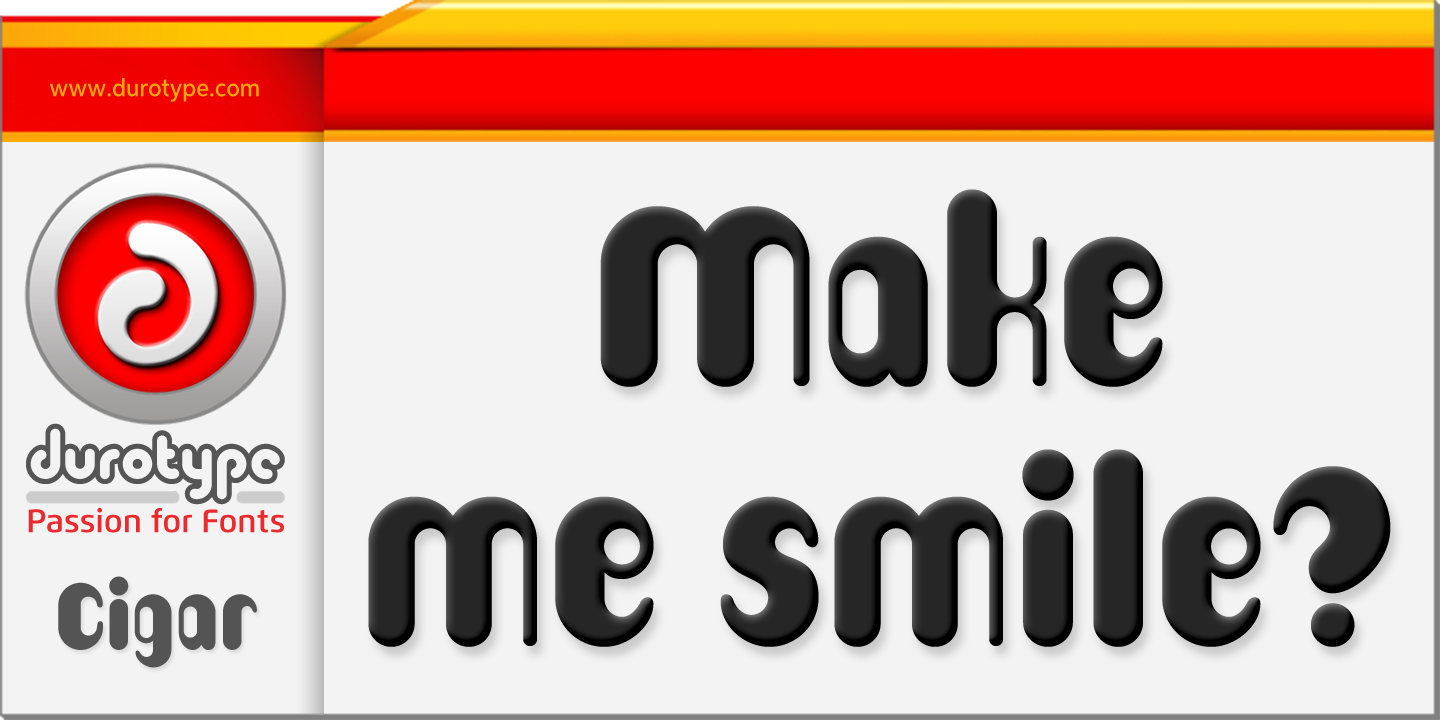
Cigar Font is perfect for premium tobacco branding, luxury cigar lounge signage, vintage gentleman's club materials, sophisticated whiskey labels, upscale bar menus, classic men's grooming products, exclusive club invitations, and distinguished lifestyle publications.
What makes Cigar Font exciting is its refined masculine elegance that captures the sophisticated atmosphere of traditional cigar culture and gentleman's leisure. The distinguished letterforms and premium character design evoke the timeless ritual of luxury smoking while maintaining contemporary appeal for discerning audiences.
Cigar Font family includes regular, bold, light, vintage, and ornate versions, plus classic decorative elements, tobacco leaf ornaments, and luxury symbols that enhance the premium lifestyle typography experience with sophisticated masculinity.
Savor sophisticated luxury with Cigar Font Free Download, the ultimate choice for brands celebrating refined masculine traditions and premium lifestyle experiences. This distinguished typeface embodies the essence of gentleman's culture through letterforms that seem to carry the rich aroma of fine tobacco and aged spirits. The meticulously crafted characters feature elegant details that convey exclusivity and tradition while maintaining professional quality standards across all luxury applications. Premium lifestyle brands and upscale establishments consistently select this font for projects requiring authentic connection to traditional masculine sophistication combined with contemporary market appeal. Its comprehensive luxury elements provide unlimited possibilities for creating memorable experiences that celebrate the art of refined living with dignity and class. Experience the timeless elegance of premium typography that transforms ordinary communications into expressions of sophisticated taste, establishing your brand as a symbol of distinguished quality in today's luxury marketplace.